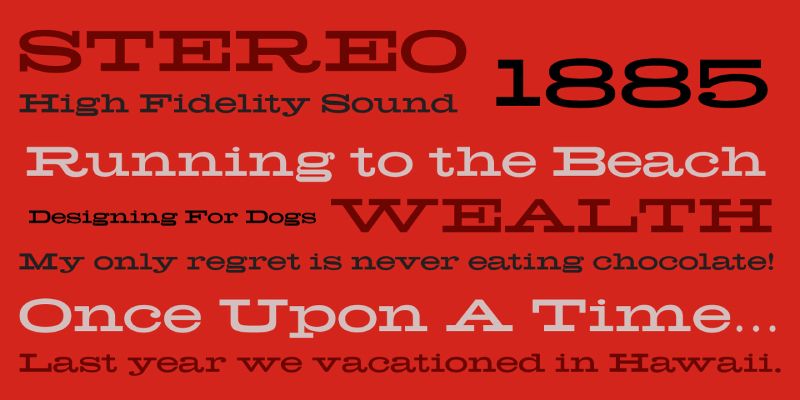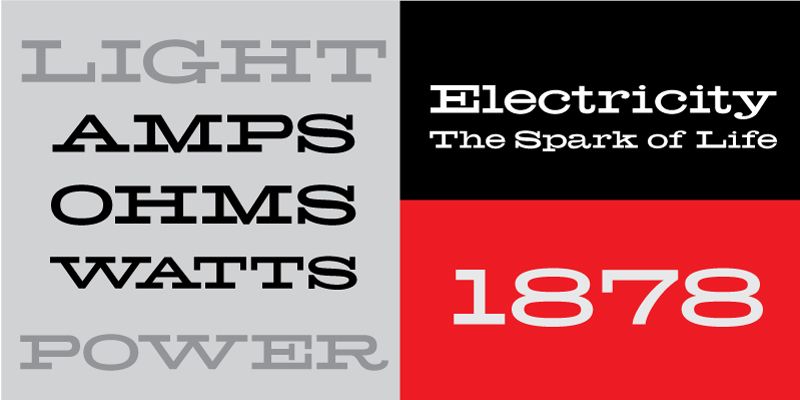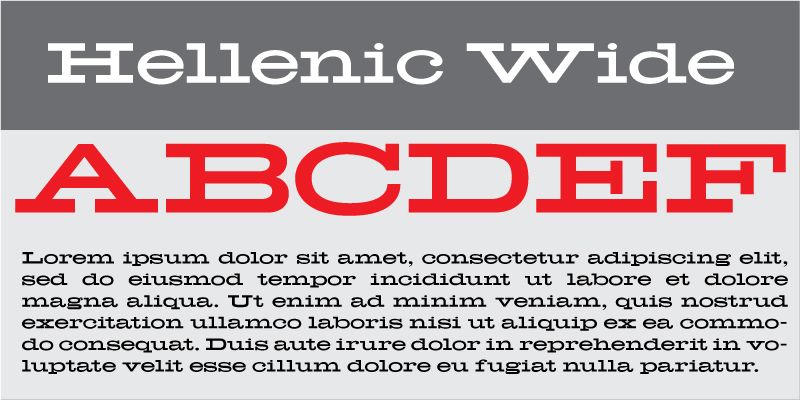
Hellenic Wide is a slab serif typeface digitally revived for the Jukebox library from the ATF original. It’s strong horizontal letterforms give it a classic mid 20th century look.